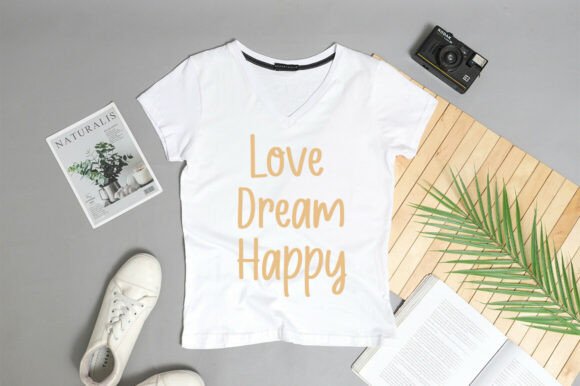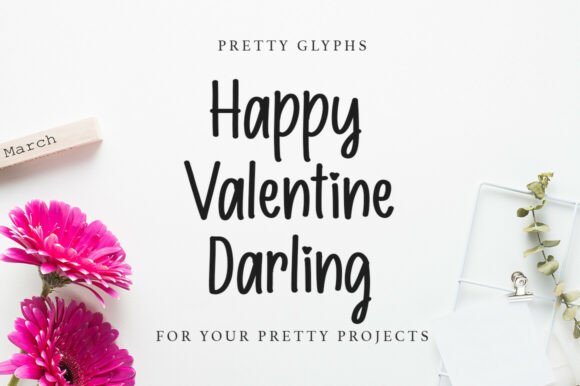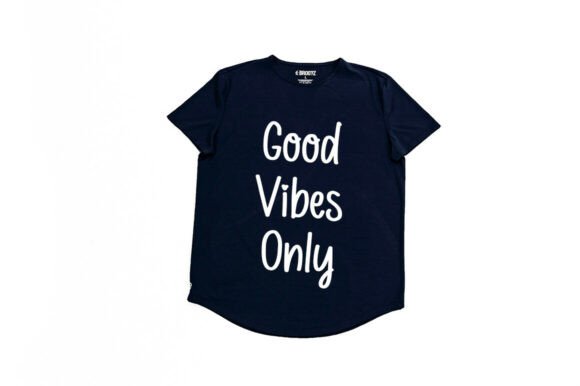
Introduction to Quickra Font
As you sit at your desk, staring blankly at your computer screen, trying to come up with the perfect design concept for your next creative project, you feel a sudden surge of inspiration. The words start flowing, and your imagination runs wild with possibilities. But, what really sets your design apart from the rest? Is it the unique font you choose to use? For designers, the right font can be the difference between a mediocre design and a truly exceptional one. And that’s where the Quickra Font comes in – a game-changing, high-quality font that will elevate your creative work to new heights.
About Quickra Font
The Quickra Font is a stunning Handwritten Brush Font that exudes effortless elegance and dynamic style. With its organic feel and authentic brush lettering, this font is perfect for designers who want to add a touch of artistic spontaneity to their work. Whether you’re working on a design project that requires a free download or a high-quality font with a transparent background, the Quickra Font is an excellent choice. This versatile font is ideal for designers who need a reliable design resource that can help them create memorable and engaging content.
Key Features of Quickra Font
- High-quality font with a modern and sleek design, perfect for creative projects.
- Designed to be highly legible, even at small font sizes, making it ideal for digital displays and creative projects.
Honest Review: Quickra Font
As a designer, I’m always on the lookout for high-quality design resources to enhance my creative projects. I recently had the chance to try out the Quickra Font, and I’m excited to share my thoughts with you.
- ✨ High-quality font with a sleek, modern design.
- ✨ Comes with a transparent background, making it perfect for use on any design project.
- ⚠️ Limited character set, which may not be suitable for longer text-based projects.
- ⚠️ Not ideal for use in smaller font sizes, as the design may become pixelated.
Getting the Most Out of Quickra Font
To get the most out of the Quickra Font, use it in conjunction with other high-quality design resources. Experiment with different font sizes, colors, and styles to create a unique and visually appealing design. Consider using the Quickra Font in a creative project, such as a logo or branding materials, to add a professional touch.
The Quickra Font is ideal for a variety of design projects, including business cards, brochures, and social media graphics. Its high quality and transparent background feature make it a popular choice among designers and creatives.